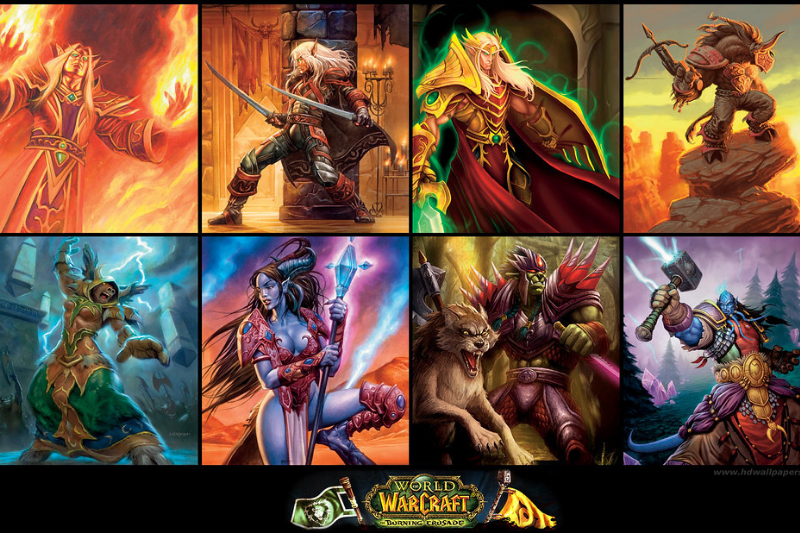
World of Warcraft Font Generator
About the World of Warcraft Font Generator
World of Warcraft typography is steeped in the epic high-fantasy world of Azeroth β€” heavy, ornate letterforms that feel carved in stone or forged in fire. The WoW logo and in-game text aesthetic blend medieval blackletter influences with fantasy game branding, creating a style that instantly signals adventure, lore, and countless hours of dungeon raiding.